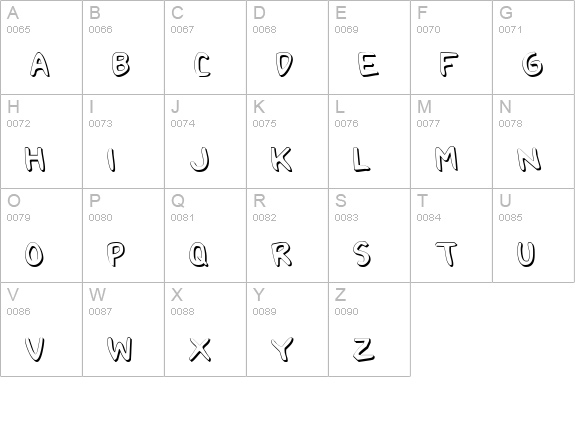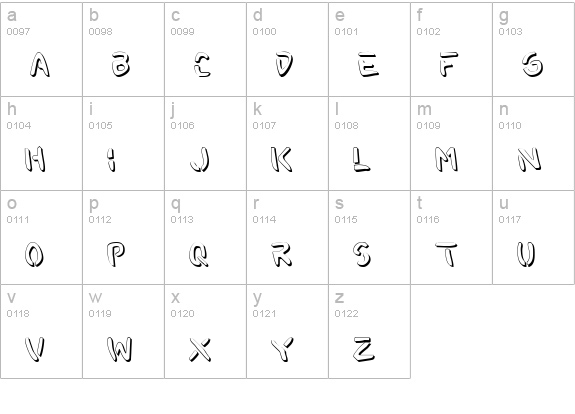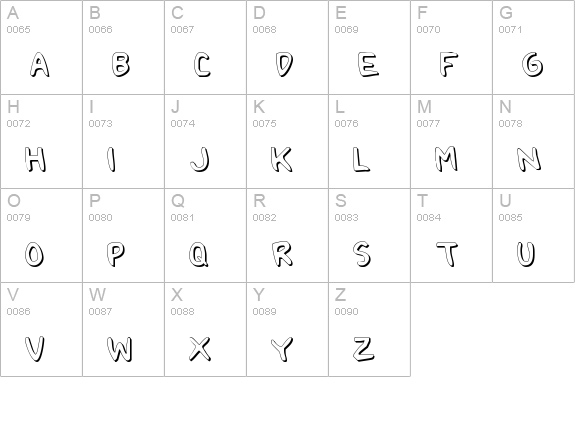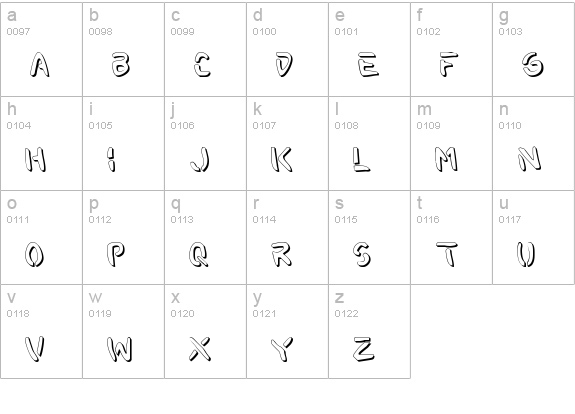
Introducing 2Toon Shadow font, a whimsical and playful typeface that brings a touch of charm to any design project. This unique font features quirky, hand-drawn lettering with a shadow effect that adds depth and dimension. Perfect for creating eye-catching headlines, posters, and branding materials, 2Toon Shadow font exudes a sense of fun and creativity. What's even better is that this font is available for free download at FontsMarket.com. Whether you're working on a personal project or a client's design, 2Toon Shadow font is a versatile and engaging choice that will surely make your text stand out. Embrace the playful spirit of this font and let your creativity shine with 2Toon Shadow!